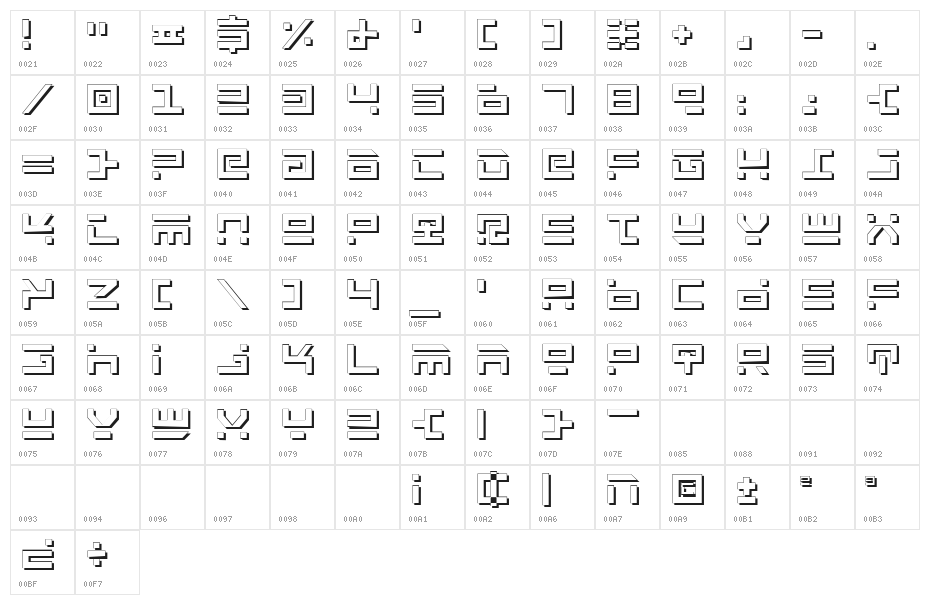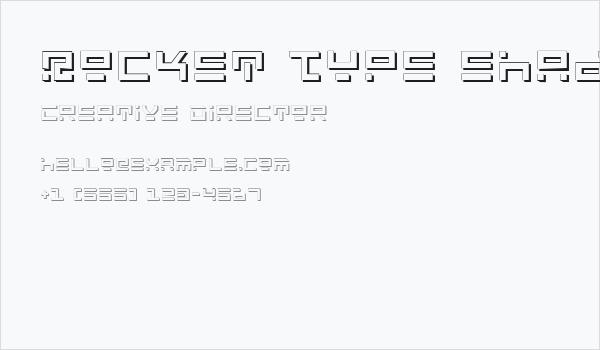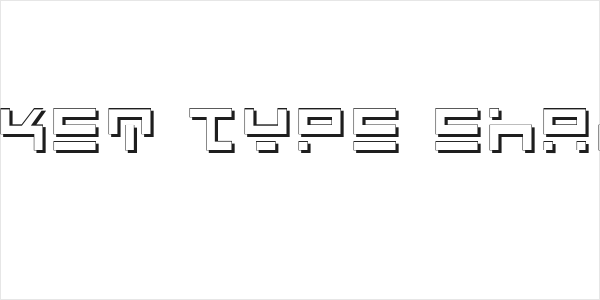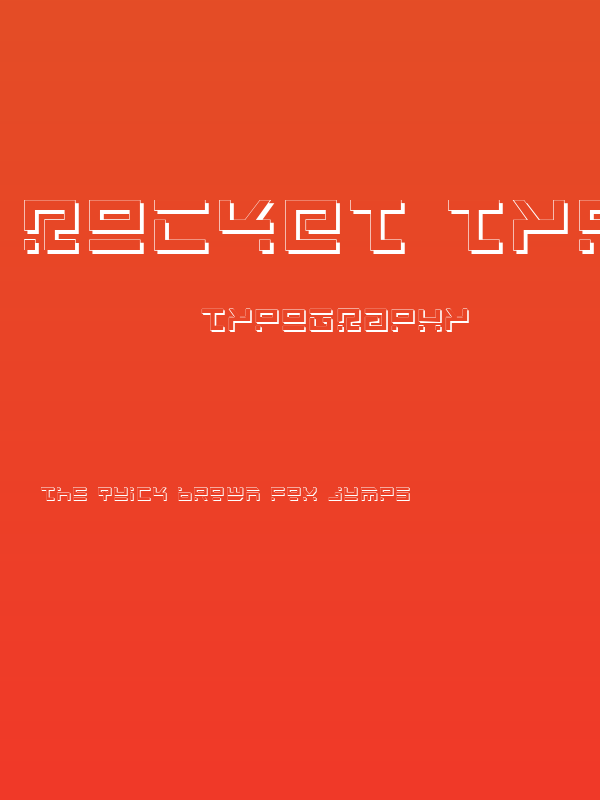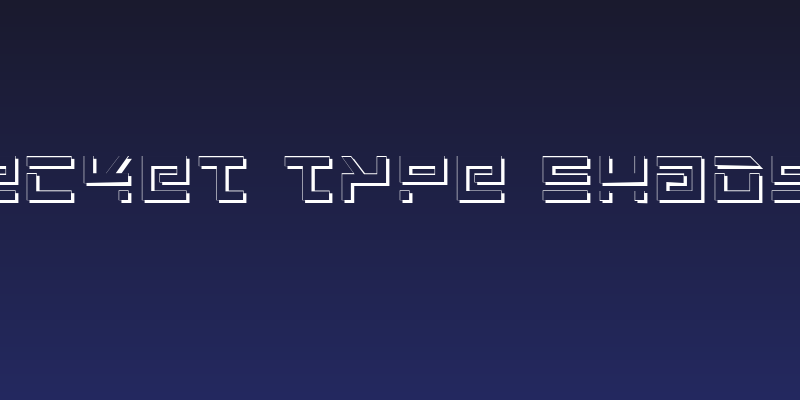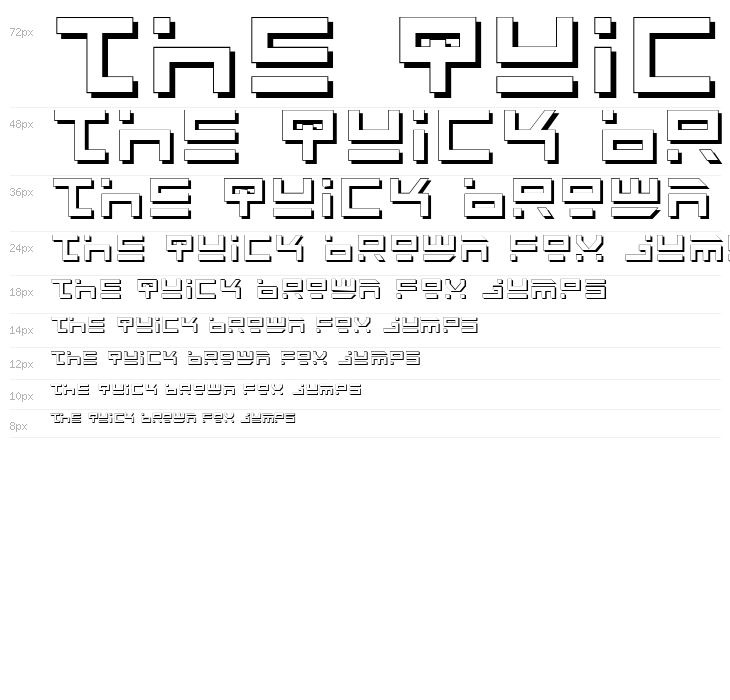
Rocket Type Shadow Font
Rocket Type Shadow Description
This font features a futuristic and geometric design with a shadow effect that gives it a three-dimensional appearance. The characters are constructed with bold, angular lines and sharp edges, creating a sense of depth and movement. The uppercase and lowercase letters maintain a consistent style, with unique cutouts and negative spaces that add to the modern aesthetic. Numbers and special characters follow the same design principles, ensuring a cohesive look across all glyphs. The font's distinct style makes it suitable for projects that require a bold and eye-catching typeface.
| Proposed Projects | Ideal for sci-fi themed designs, video game titles, tech branding, and futuristic posters. |